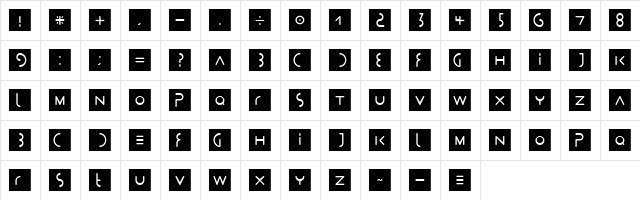
Stealth (Plain)
Design Context for Stealth Typeface
Stealth takes a measured approach to typography — its balanced proportions and neutral character make it a reliable workhorse for both digital and print work.